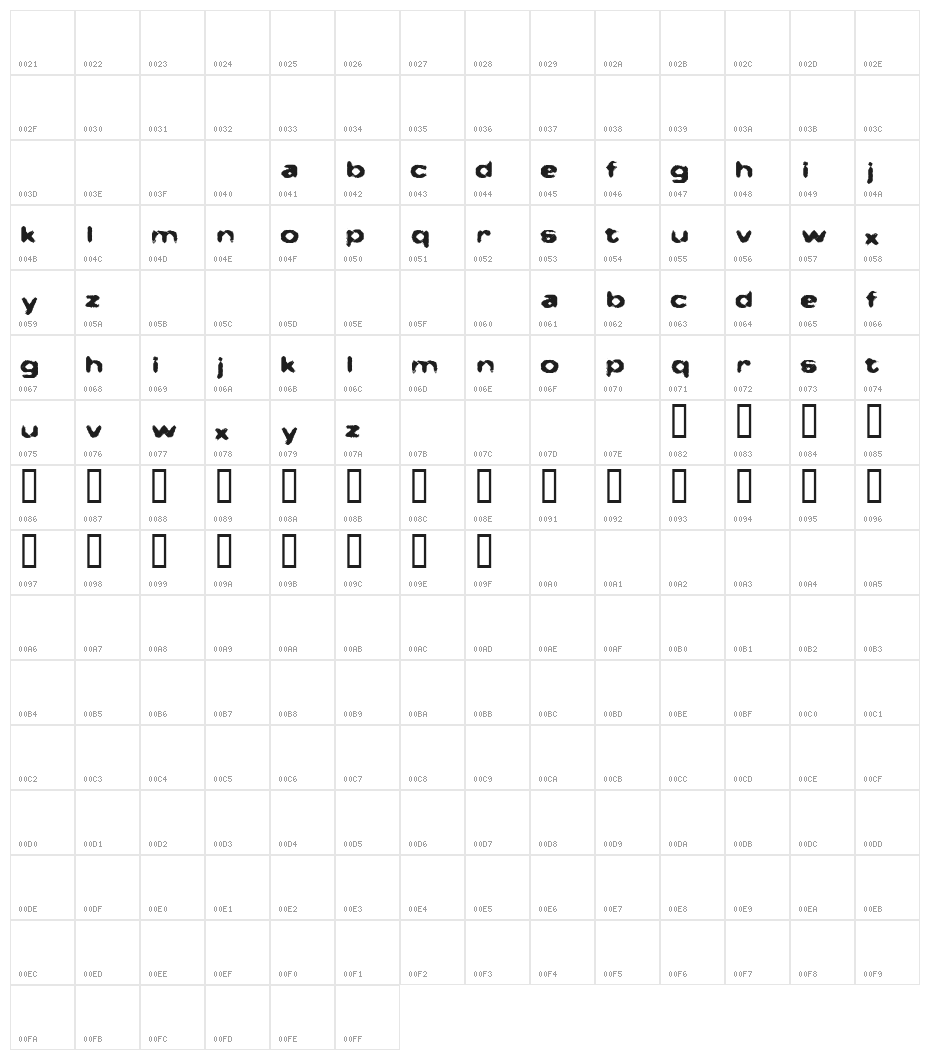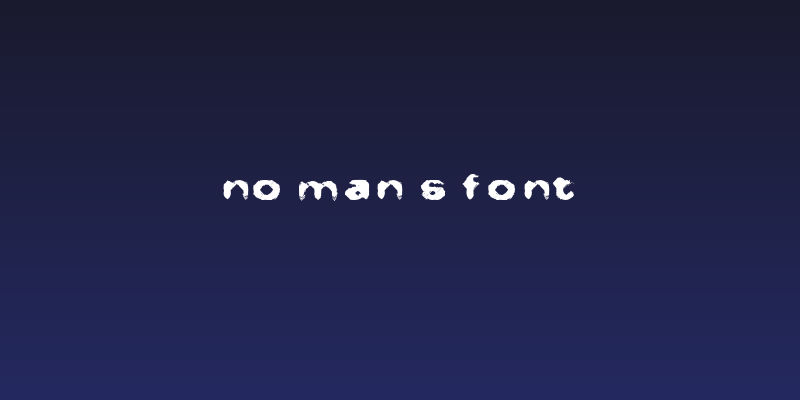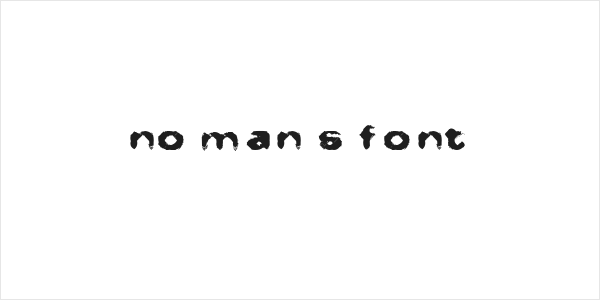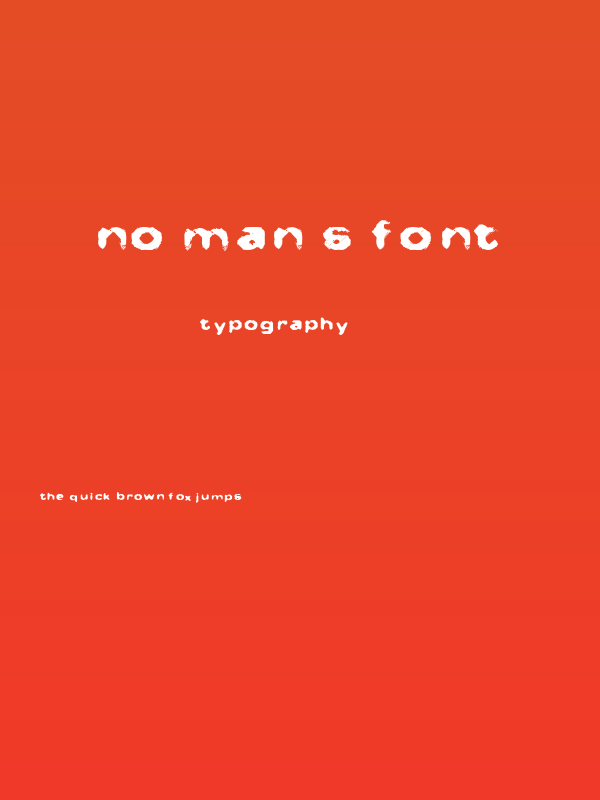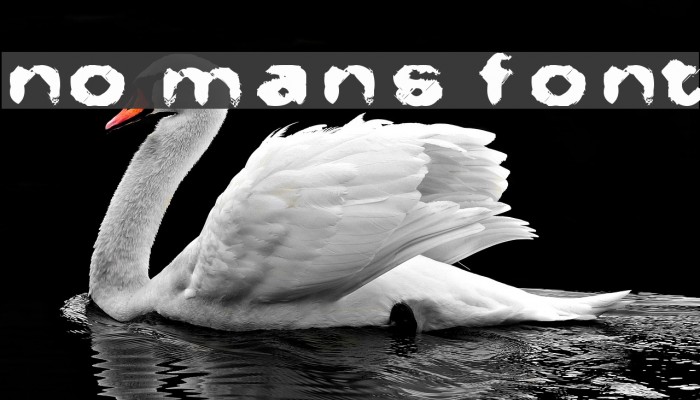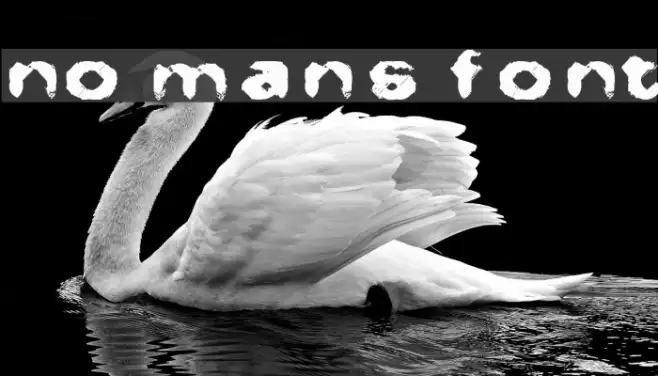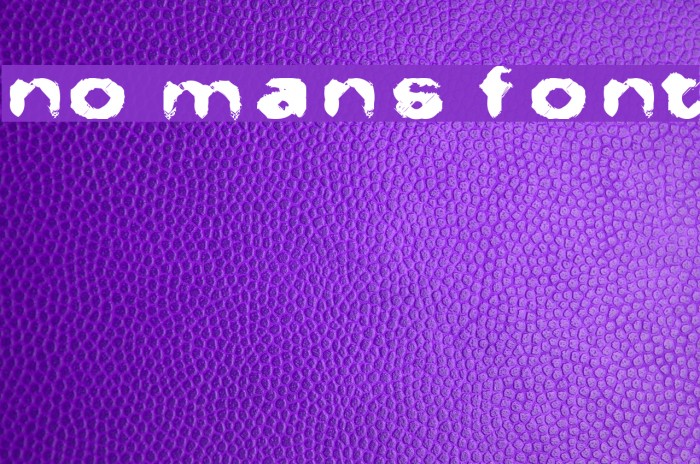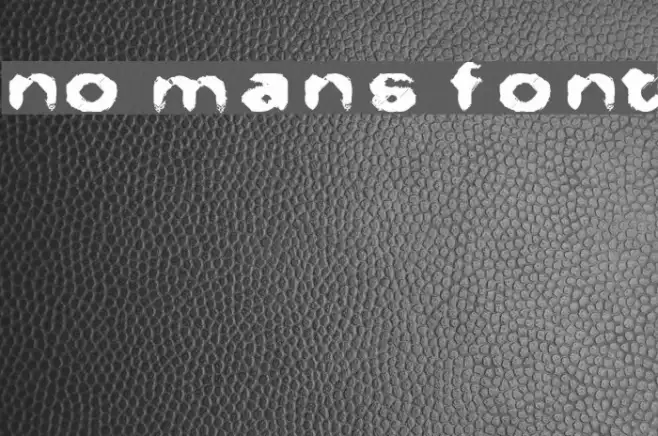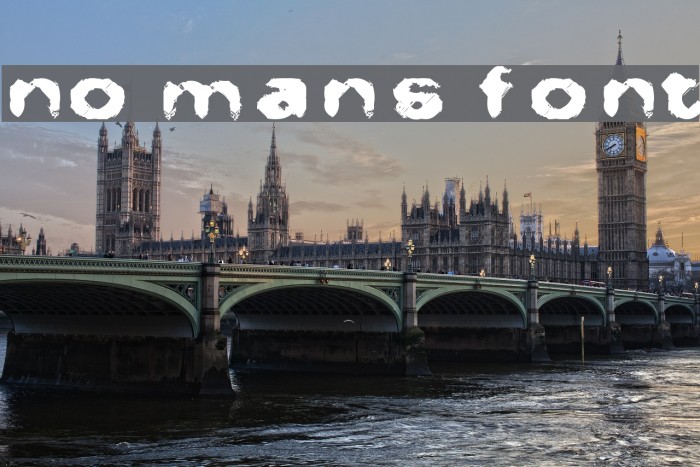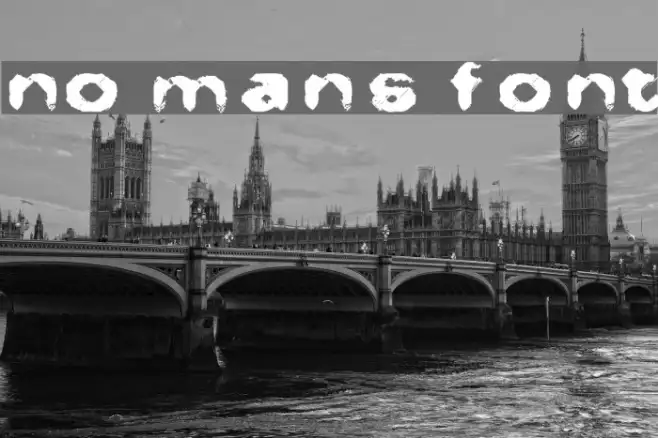
No Man's Font Font
No Man's Font Description
This font features a rugged, distressed appearance, reminiscent of weathered or eroded surfaces. The characters have an irregular, textured edge that gives them a unique, handcrafted feel. This style is particularly effective in conveying a sense of age, history, or a gritty, urban aesthetic. The lowercase letters maintain a consistent height, while the overall design suggests a casual, informal tone. The font's distinctive look makes it stand out, suitable for projects that require a bold statement or an artistic touch.
| Overall Style | Vintage, Artistic |
| Proposed Projects | Ideal for posters, album covers, branding for outdoor or adventure-themed products, and artistic projects requiring a bold, gritty aesthetic. |